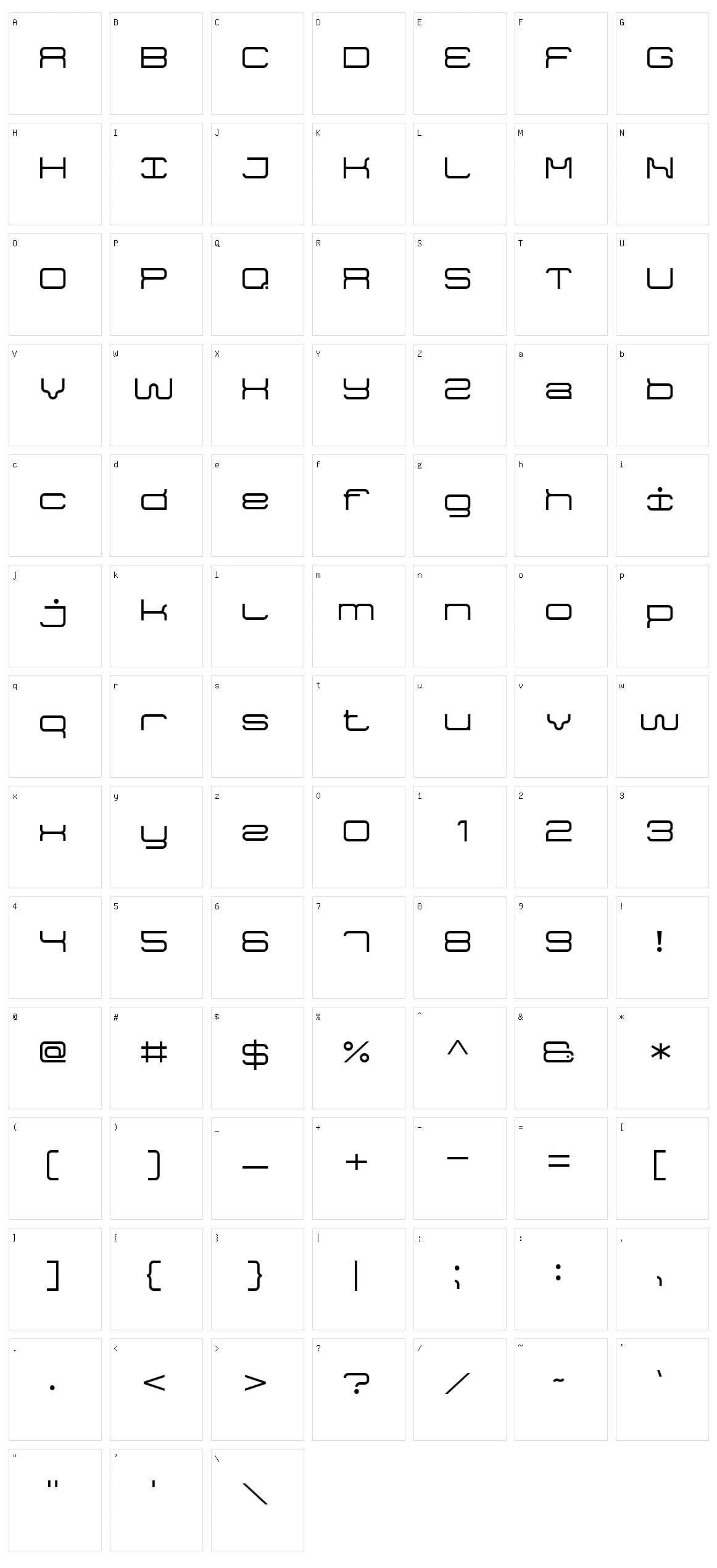
Game Font 7
Designed by: Style-7
Original thin font. Western and Cyrillic code pages are supported. The font was created special for freeware game "Android Arkanoid-7".